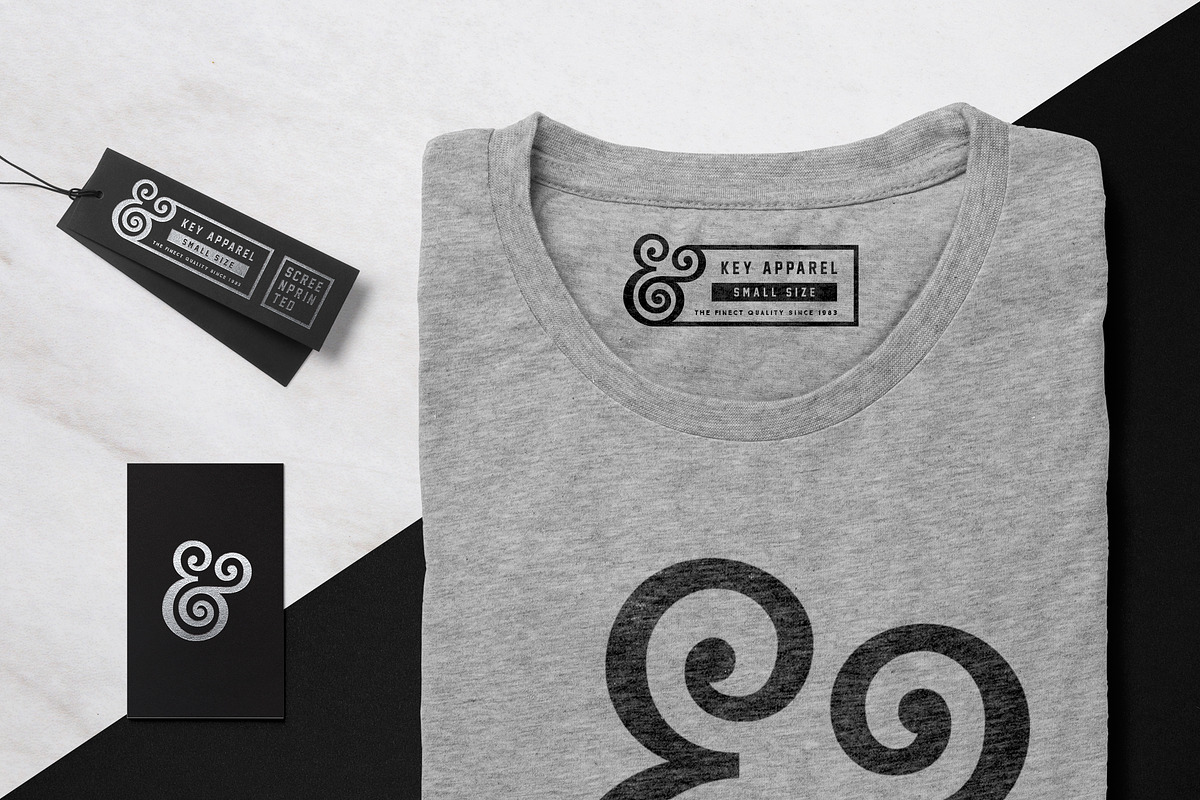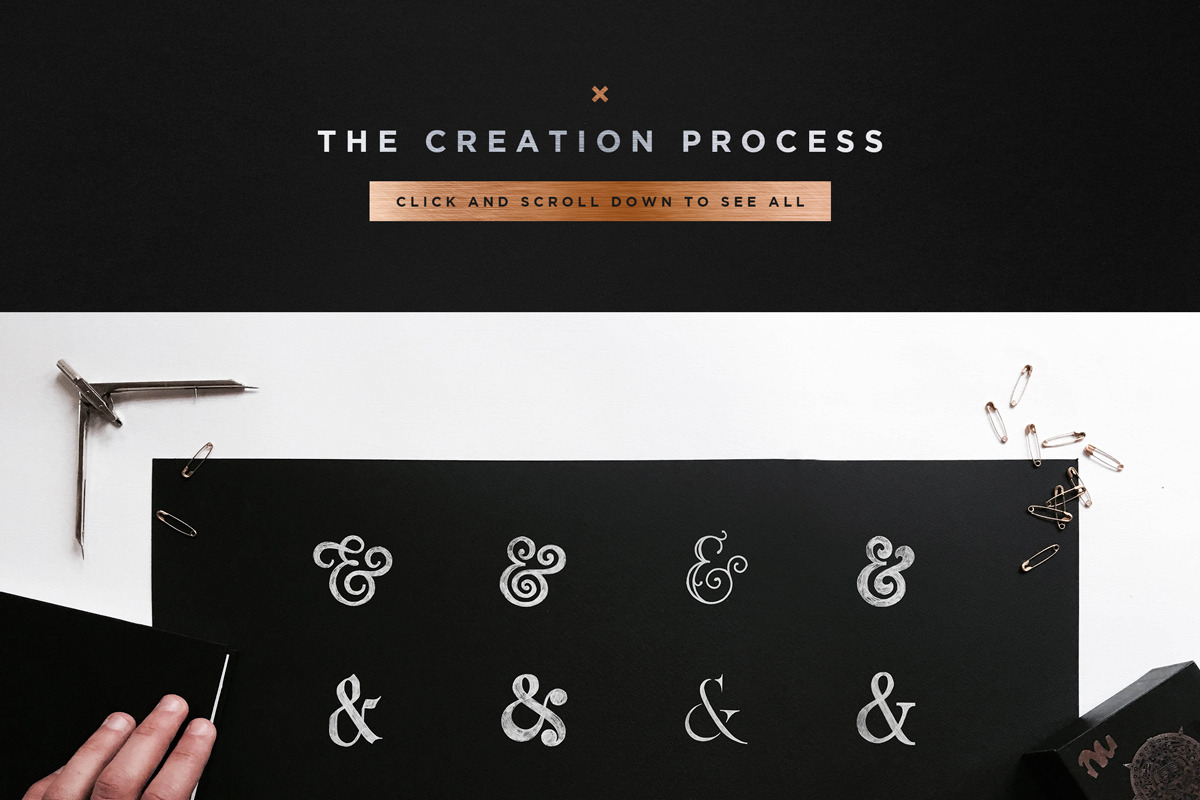
16 Ampersands Set
16 unique vector ampersands that you can use for your next awesome design: branding projects, identity, labels, badges, wedding invitations, wedding stationery, save the date, thank you cards, apparel design, websites, stamps, stickers, t-shirts and much more!
- Each ampersand is unique. All ampersands in the set were carefully hand drawn and professionally vectorized.
- Ampersands are multipurpose. It's perfect for logos, branding, identity, wedding stationery, labels, posters, prints and etc.
- Each ampersand was carefully handcrafted with love and attention.